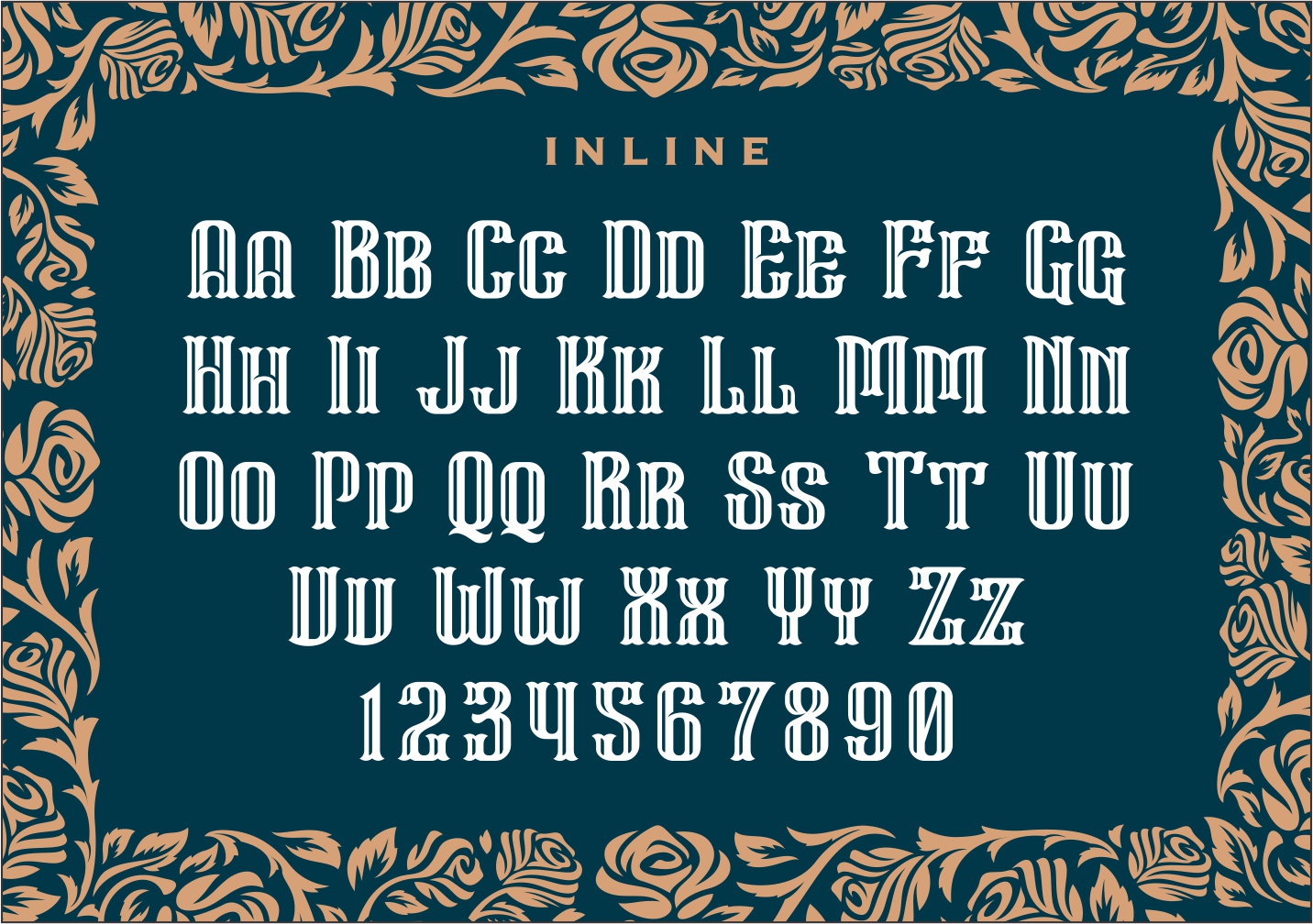
Wall Axe Font
WallAxe Typeface is the first commercial typeface from Nocturnal Workspace. With classic, elegant, vintage, luxury, and clean feel. Come with 2 styles regular and inline style.
• WallAxe comes with 2 versions. WallAxe Reguler and WallAxe Inline (.ttf + .otf), both fonts comes with upper and lowercase Standard Characters, Punctuation, Numerals. And other Glyphs variation of the OpenType features such as Standard Ligature, Stylistic Alternate, and Stylistic Set.
• Includes a range of multilingual characters.
WallAxe Typeface is suitable typeface for various purposes like logotype, signage, label, poster, dropcap, titles, letterhead, book cover and etc.